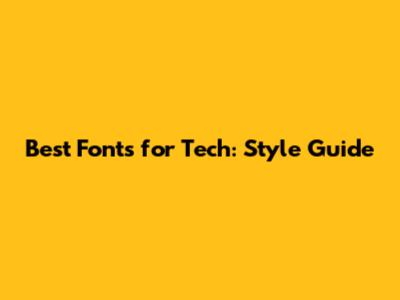
Best Fonts For Tech: Style Guide
Choosing the best font for your technology-related project is super important! Whether you're designing a website, an app, or marketing materials, the right font can significantly impact how your audience perceives your brand. Think about it – a font can convey professionalism, innovation, and even a sense of trustworthiness. This guide dives into the best font styles that resonate with the tech world, helping you make informed decisions that align with your brand's identity and goals.
When selecting a font, start by considering the overall tone and message you want to communicate. A cutting-edge tech startup might opt for a sleek, modern sans-serif font, while a more established company could prefer a font that balances innovation with reliability. Factors like readability, scalability, and consistency across different platforms are also crucial. A font that looks great on a desktop might not translate well to a mobile device, so it's essential to test your choices in various contexts. Also, think about how the font pairs with other design elements, such as colors, images, and logos, to create a cohesive visual experience. By carefully considering these aspects, you can choose a font that not only looks good but also enhances the user experience and reinforces your brand's message. Ultimately, the right font can be a powerful tool for building credibility and attracting your target audience in the competitive tech landscape.
It's also a great idea to look at what other successful tech companies are doing with their branding. Notice the fonts they use in their logos, websites, and marketing campaigns. While you don't want to copy their style, you can gain inspiration and insights into current trends and effective font choices. Consider fonts like Helvetica Neue, Roboto, and Open Sans, which are widely used in the tech industry for their clean lines and excellent readability. Another approach is to explore font libraries like Google Fonts, Adobe Fonts, and MyFonts, where you can find a vast selection of fonts with different styles and licensing options. Remember to check the licensing terms to ensure you can use the font for your intended purposes. By doing thorough research and testing, you can narrow down your options and choose a font that perfectly embodies the spirit of your tech brand.
Why Font Choice Matters in Technology
Font choice in technology is more than just aesthetics; it's about functionality and user experience. In the tech world, where innovation and clarity are paramount, the right font can significantly enhance how users interact with your products and services. A well-chosen font improves readability, ensures accessibility, and reinforces your brand's identity. Conversely, a poorly chosen font can lead to confusion, frustration, and a negative perception of your brand. It's essential to understand the impact of typography on user engagement and make informed decisions that align with your target audience and business goals.
Consider the context in which your font will be used. For example, if you're designing a mobile app, you'll need a font that is easily readable on small screens. Fonts with clean lines and ample spacing between characters are ideal for mobile devices. Similarly, if you're creating a website, you'll want a font that loads quickly and displays consistently across different browsers and devices. Performance is a critical factor in web design, and a poorly optimized font can slow down your website and impact user experience. In addition to technical considerations, think about the emotional impact of your font. A font can evoke feelings of trust, excitement, or sophistication. Choose a font that reflects the personality of your brand and resonates with your target audience. For example, a tech startup might opt for a modern, minimalist font, while a more established company could prefer a classic, professional font.
Furthermore, accessibility is a critical consideration in font choice. Ensure that your font is legible for users with visual impairments. Use appropriate contrast ratios between text and background colors, and avoid using fonts that are too light or too decorative. Adhering to accessibility guidelines not only benefits users with disabilities but also improves the overall user experience for everyone. In addition to readability and accessibility, consider the scalability of your font. Your font should look good at different sizes and resolutions. Test your font on various devices and platforms to ensure that it maintains its legibility and visual appeal. By paying attention to these details, you can create a seamless and enjoyable user experience that reinforces your brand's credibility and professionalism. Ultimately, the right font can be a powerful tool for enhancing user engagement and driving business success in the competitive tech landscape.
Top Font Styles for the Tech Industry
Selecting the right font for the tech industry requires careful consideration of various factors, including readability, modernity, and brand identity. The top font styles typically lean towards clean, sans-serif options that convey a sense of innovation and clarity. However, there's also room for incorporating unique and creative fonts that set your brand apart while maintaining a professional image. Let's explore some of the most popular and effective font styles that resonate with the tech world.
Sans-Serif Fonts: These fonts are characterized by their clean lines and lack of serifs (the small decorative strokes at the end of letterforms). Sans-serif fonts are widely used in the tech industry for their excellent readability and modern aesthetic. Some popular sans-serif fonts include:
- Helvetica Neue: A classic and versatile font that is widely used in branding, web design, and print materials.
- Arial: A widely available and highly legible font that is often used as a default font in many applications.
- Roboto: A modern and friendly font that is designed for readability on screens and is commonly used in Android applications.
- Open Sans: A humanist sans-serif font that is optimized for print, web, and mobile interfaces.
- Lato: A stylish and readable font that combines modern and classic elements, making it suitable for a wide range of applications.
Serif Fonts: While sans-serif fonts are more prevalent in the tech industry, serif fonts can also be used effectively, especially for creating a sense of tradition and sophistication. Serif fonts have serifs, which are the small decorative strokes at the end of letterforms. Some popular serif fonts include:
- Times New Roman: A classic and widely recognized font that is often used in formal documents and publications.
- Georgia: A highly legible serif font that is optimized for screen display and is commonly used in web design.
Conclusion
Choosing the best font style for your technology brand is a decision that goes beyond mere aesthetics. It's about crafting an identity, ensuring readability, and enhancing the user experience. By understanding the nuances of different font styles and their impact, you can make informed decisions that align with your brand's values and goals. Remember to consider readability, scalability, and font pairings to create a cohesive and visually appealing design. Explore real-world examples and learn from the successes of other tech companies. With careful consideration and testing, you can find the perfect font that embodies the spirit of your tech brand and resonates with your target audience. So go ahead, experiment with different fonts, and discover the one that truly speaks to your brand's unique identity. Good luck, and happy designing!